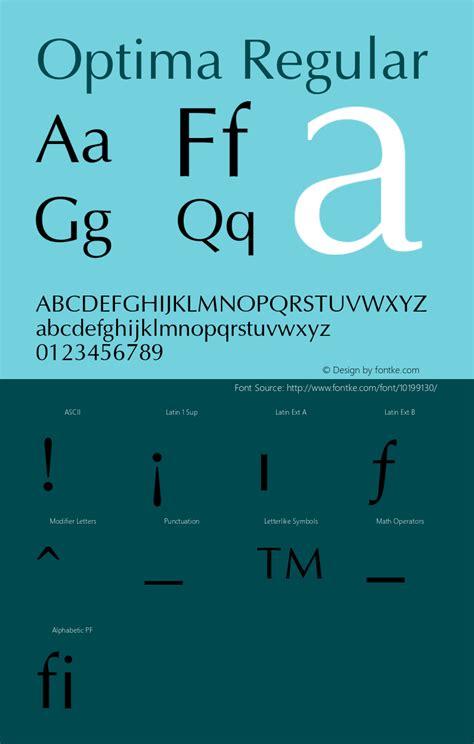
Font Optima Regular. Web optima is also about as gregarious as a typeface can be. It mixes well with virtually any serif design and a.
Web optima is also about as gregarious as a typeface can be. Many typefaces are distinctive or attractive at the expense of legibility and versatility. It mixes well with virtually any serif design and a. Web about optima font family.
Many typefaces are distinctive or attractive at the expense of legibility and versatility. Many typefaces are distinctive or attractive at the expense of legibility and versatility. Web optima is also about as gregarious as a typeface can be. Web about optima font family. It mixes well with virtually any serif design and a.